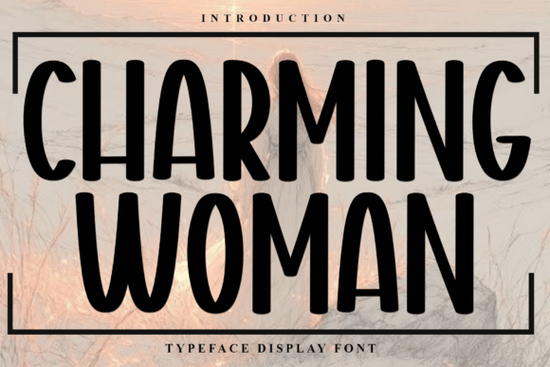
If you’re looking for a font that feels like holiday lights strung across your design, Charming Woman might be just what you need. It’s not overly fancy or hard to read instead, it brings a playful, nostalgic warmth that works beautifully on greeting cards, gift tags, and seasonal branding. The decorative swirls and cheerful curves make each letter feel intentional, like it was drawn with care during a cozy winter evening.
This typeface is especially handy if you run a small shop or create printables for Etsy or Shopify. Because it’s PUA encoded, all the special characters, ligatures, and alternate glyphs are easy to access no digging through character maps or installing extra files. That means less setup time and more designing.
For those who’ve used fonts like The Edmund or Never Forget, you’ll appreciate how Charming Woman balances personality with practicality. It doesn’t shout for attention it invites the viewer in with charm.
What kinds of projects does this font work best for?
You’ll find Charming Woman shines in contexts where mood matters more than minimalism:
- Holiday cards and invitations its whimsical strokes pair well with snowflakes, holly, or vintage illustrations.
- Gift tags and packaging labels adds a handmade, boutique feel even when printed at home.
- Social media graphics especially for seasonal promotions or countdown posts.
- Wedding or baby shower designs if you’re going for soft, romantic, or vintage-inspired themes.
It’s also surprisingly versatile for non-holiday use. Try it on tea packaging, bakery menus, or feminine brand logos where you want to suggest warmth without being too cutesy.
How does it compare to other display fonts on Creative Fabrica?
If you’ve browsed fonts like Frontier Western or Harlan, you know Creative Fabrica offers styles for every vibe. Where Frontier leans rustic and Harlan brings bold geometry, Charming Woman sits comfortably in the “delightfully detailed” category. It’s not trying to be trendy it’s trying to feel timeless.
One thing users often overlook: pairing potential. This font doesn’t need to stand alone. Use it as a headline over a clean sans-serif body font, and you get contrast without clutter. Think of it like adding cinnamon to hot chocolate just enough to elevate, not overwhelm.
Who should avoid this font?
It’s not ideal for long paragraphs or corporate reports. The decorative elements, while lovely, reduce readability at small sizes or in dense blocks of text. Also, if your brand aesthetic is ultra-modern, minimalist, or tech-focused, this probably isn’t your go-to.
And while it’s called “Charming Woman,” don’t let the name limit you men and gender-neutral brands use it too, especially for products tied to nostalgia, comfort, or celebration.
Any hidden tricks or lesser-known features?
A few worth noting:
- Try typing double letters many include custom ligatures that look more natural than two separate characters.
- Use all caps sparingly. The uppercase letters are bold and ornate; they work better as accents than full headlines.
- Pair with textured backgrounds or watercolor overlays to enhance the handcrafted feel.
- Play with size, color, and background until it feels right. Sometimes the magic is in the styling, not just the letterforms.
Fonts like this aren’t just tools they’re tiny mood-setters. And in a world where customers scroll fast, sometimes the right curve or flourish is what makes them pause, smile, and click “add to cart.”